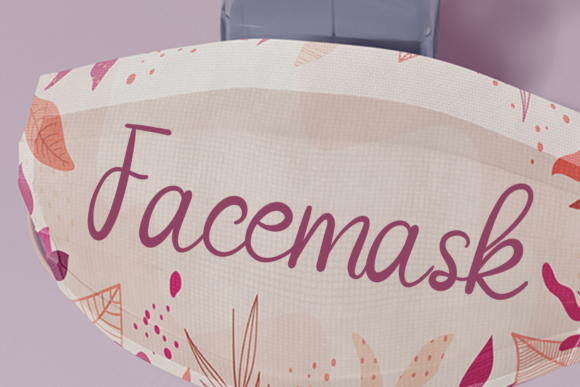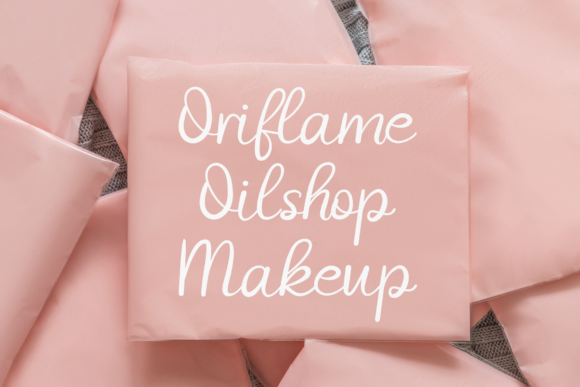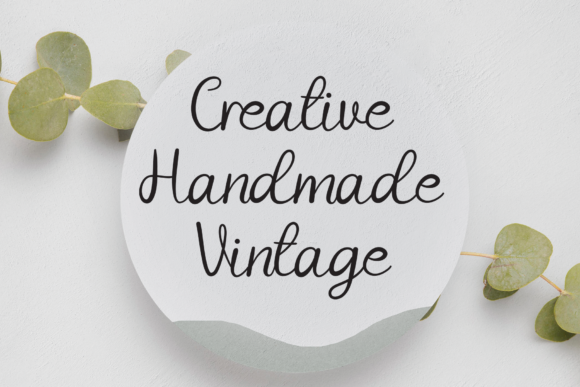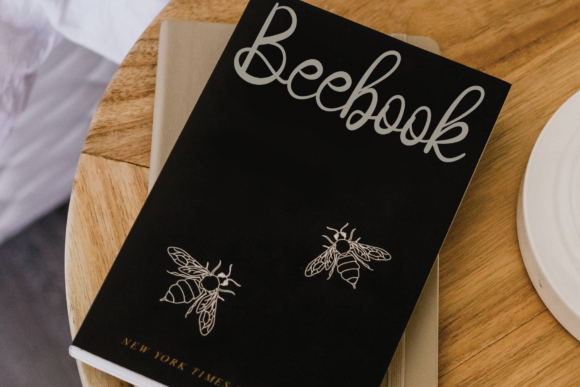
Introduction to Kindking Font
Kindking is an elegant script font with a contemporary feel and perfect form.
Not too thin and not too bold, balanced and varied, this font is designed to enhance the beauty of your projects .